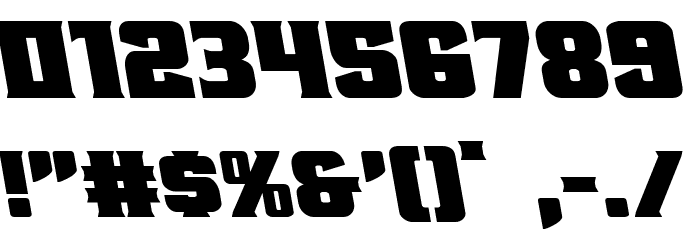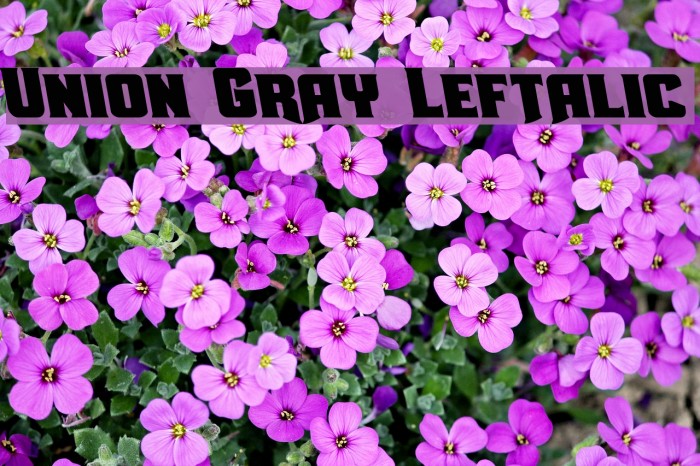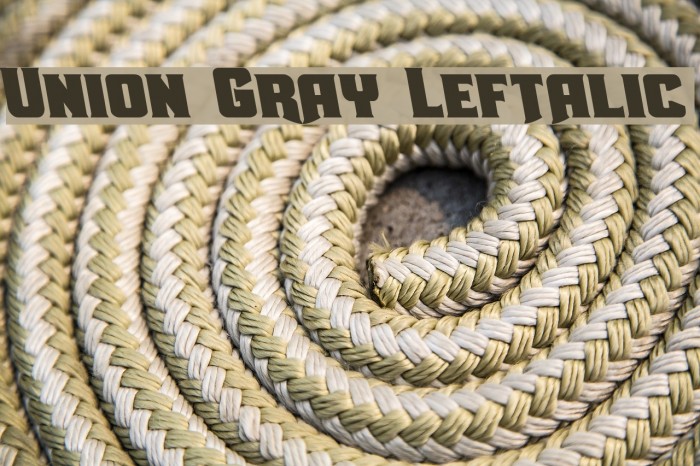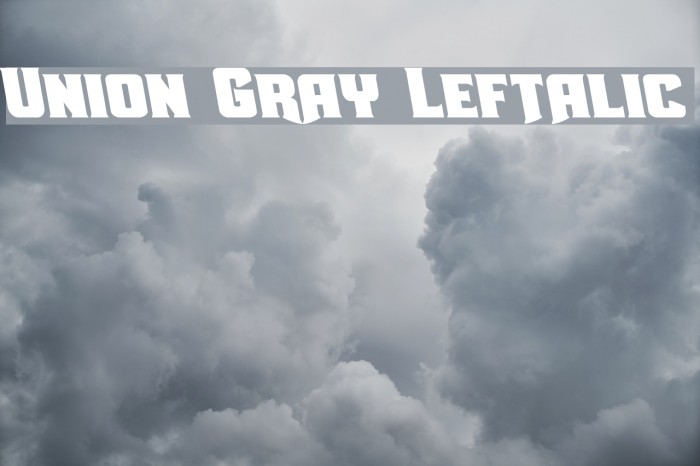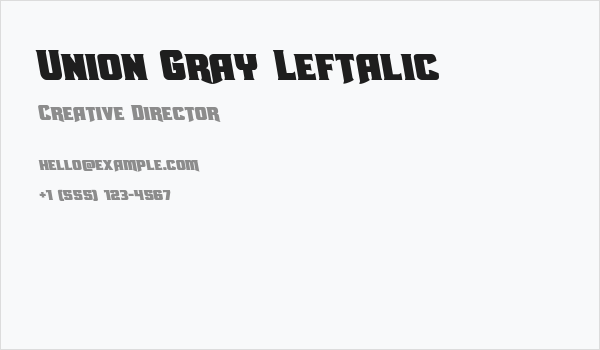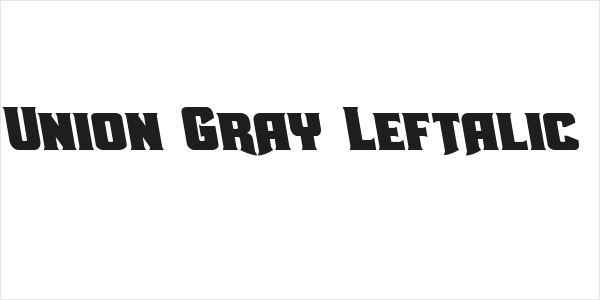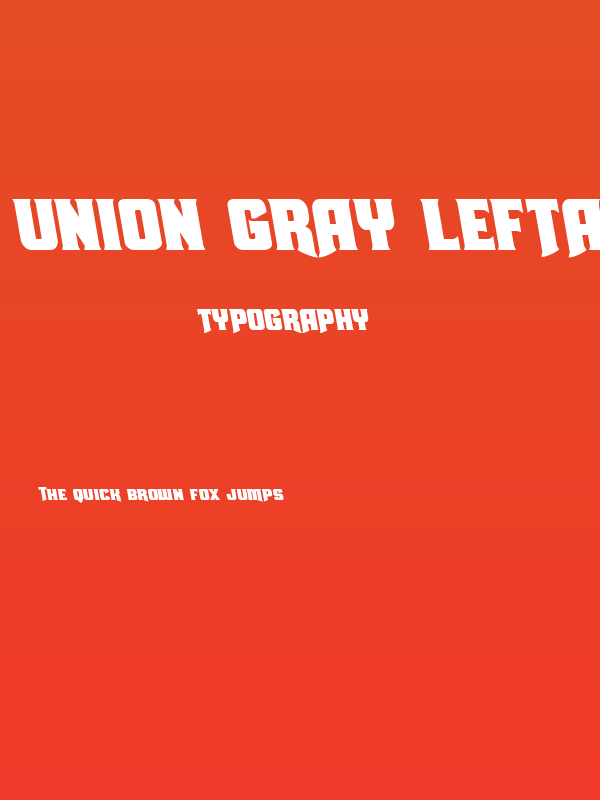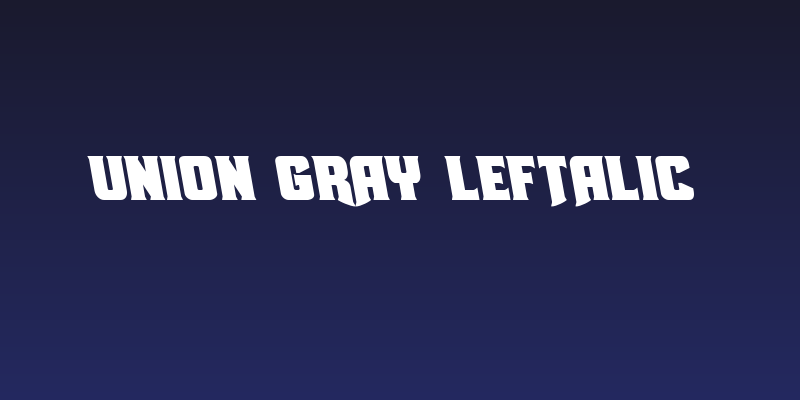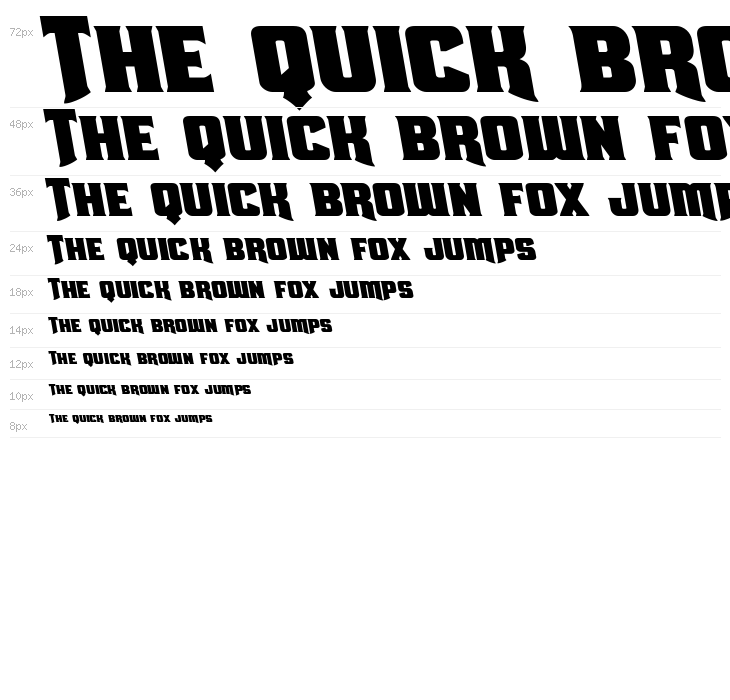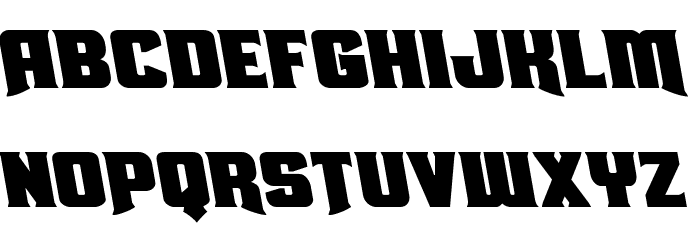
Union Gray Leftalic Font
Union Gray Leftalic Description
This font features a bold and impactful design with a distinct slant to the left, giving it a dynamic and energetic appearance. The characters are robust and heavily weighted, making them stand out prominently. The angular cuts and sharp edges contribute to a modern and edgy feel, while the consistent thickness throughout the strokes ensures a cohesive look. The uppercase and lowercase letters maintain a uniform style, and the numerals are equally bold and striking. Special characters are designed to match the overall aesthetic, providing a comprehensive set for various uses.
| Proposed Projects | Ideal for sports branding, event posters, and dynamic logo designs. |